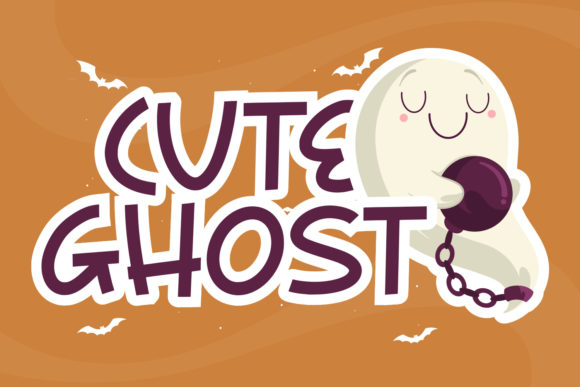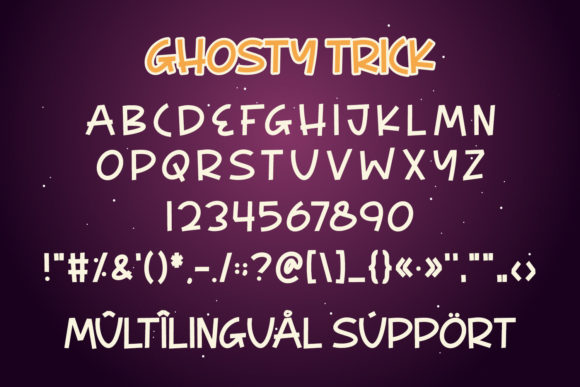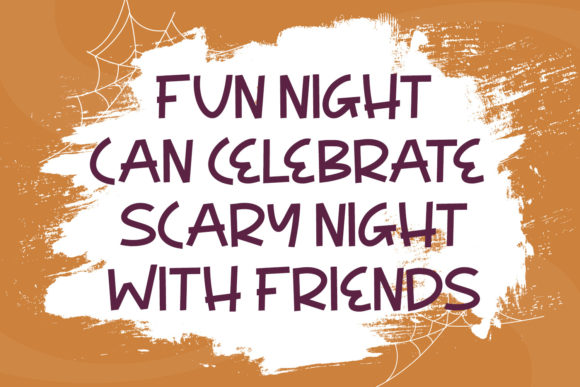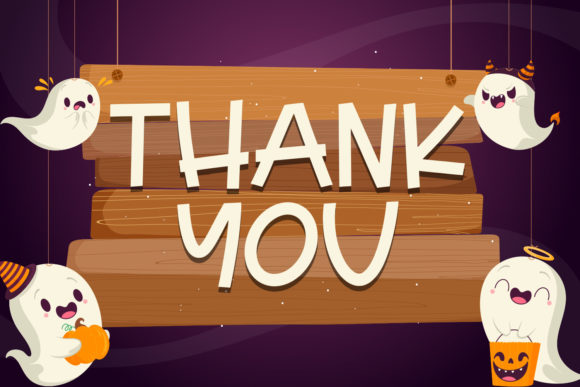
Introducing Ghosty Trick Font: The Perfect Blend of Cute and Spooky
Are you a designer, crafter, or DIY enthusiast looking for a font that embodies the perfect blend of playfulness and spookiness? Look no further than Ghosty Trick Font! This adorable display font is designed to bring a touch of whimsy and authenticity to any project, making it the ideal choice for children’s activities, school projects, and more.
What is Ghosty Trick Font?
Ghosty Trick Font is a unique and eye-catching display font that combines the cuteness of playful typography with the spookiness of Halloween-themed designs. Its distinctive characters are carefully crafted to evoke a sense of fun and eeriness, making it perfect for a wide range of creative projects.
Key Features of Ghosty Trick Font
- Cute and Spooky Design: Ghosty Trick Font boasts a delightful blend of cute and spooky elements, making it perfect for projects that require a touch of whimsy and playfulness.
- Playful and Authentic: This font embodies the perfect balance of playfulness and authenticity, ensuring that your projects stand out from the crowd.
- Display Font: Ghosty Trick Font is designed as a display font, making it perfect for headlines, titles, and other attention-grabbing elements.
Uses for Ghosty Trick Font
Ghosty Trick Font is an incredibly versatile font that can be used in a wide range of creative projects, including:
- Children’s Activities: This font is perfect for creating fun and engaging materials for kids, such as worksheets, coloring pages, and activity sheets.
- School Projects: Ghosty Trick Font is an excellent choice for school projects, including posters, presentations, and other visual aids.
- Halloween-themed Designs: This font is ideal for creating spooky and fun designs for Halloween, including invitations, party decorations, and more.
- Crafting and DIY Projects: Ghosty Trick Font can be used in a variety of crafting and DIY projects, such as card making, scrapbooking, and more.
Tips for Using Ghosty Trick Font
To get the most out of Ghosty Trick Font, here are a few tips to keep in mind:
- Use it sparingly: Ghosty Trick Font is a bold and attention-grabbing font, so use it sparingly to avoid overwhelming your design.
- Pair it with complementary fonts: Pair Ghosty Trick Font with complementary fonts to create visual interest and add depth to your design.
- Experiment with colors and textures: Don’t be afraid to experiment with different colors and textures to add an extra layer of visual interest to your design.